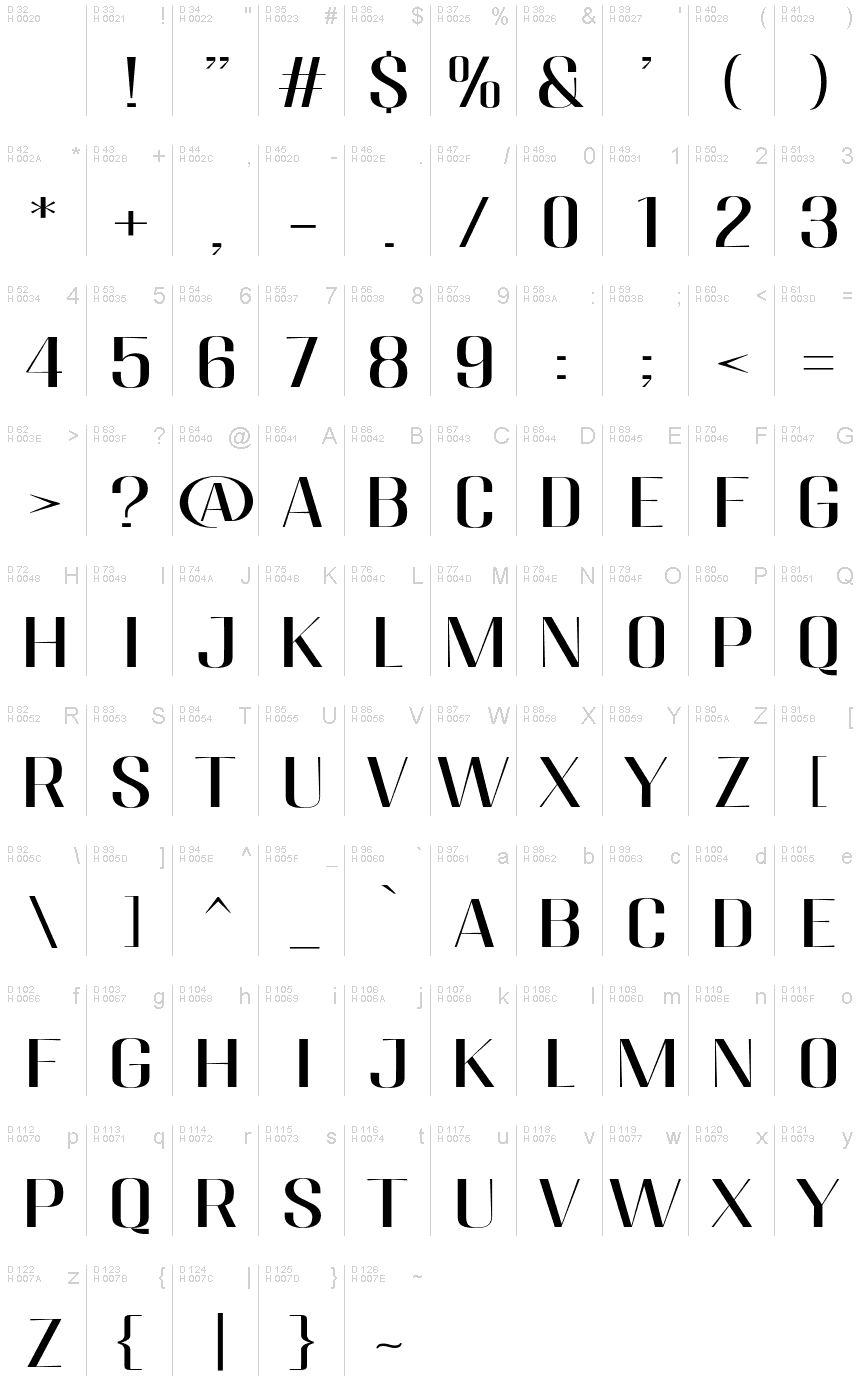
Migha-Expanded
Migha Expanded is a stunning sans-serif font designed by Seniors Studio. With its semi-expanded width, this font has the perfect balance between elegance and readability, making it suitable for a variety of projects. Whether you're designing a sleek website or creating bold branding materials, Migha Expanded will make your text pop. Its clean lines and modern feel make it ideal for fashion and beauty brands, while its legibility makes it perfect for corporate or academic projects. This versatile typeface is an excellent addition to any designer's toolkit and will elevate your work to the next level.